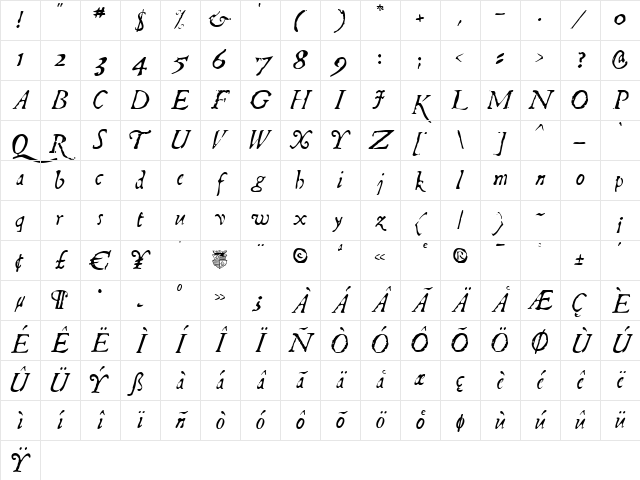
Telegdi Italic Free Font
Telegdi Italic
Design Context for Telegdi
Telegdi is a composed and adaptable typeface that performs quietly and consistently across a wide range of design contexts. The slanted form adds forward momentum and visual energy.